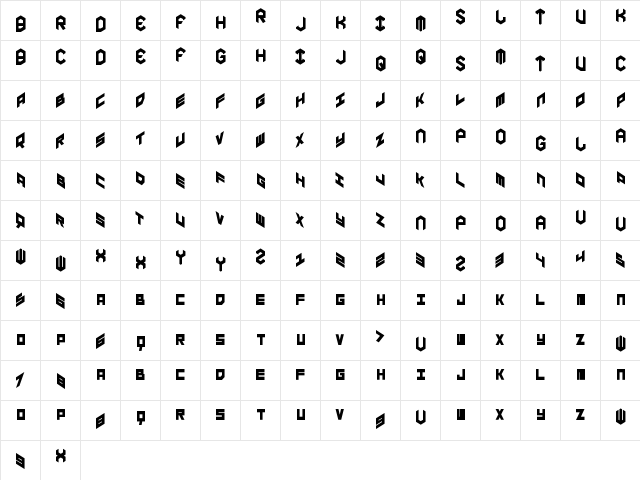
YAY USA Condensed Condensed
Design Context for YAY USA Condensed Typeface
YAY USA Condensed is a composed and adaptable typeface that performs quietly and consistently across a wide range of design contexts. The condensed width makes it efficient for tight spaces without sacrificing legibility.